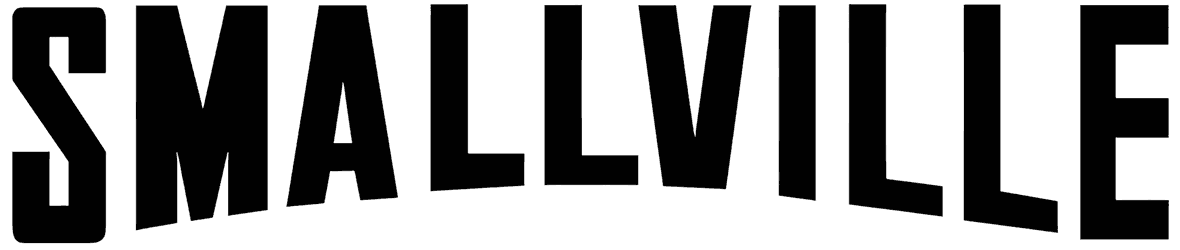
Let’s increase the level of adrenaline in your graphic content with the help of a magical movie font such as Smallville that carries a sense of buzz, excitement, eeriness, and jauntiness.
Due to its blocky style, it has very good readability, so this sans serif font can boost the quality of movie posters, video game banners, and branding. We strongly advise you not to pay attention to the lack of lowercase letters.